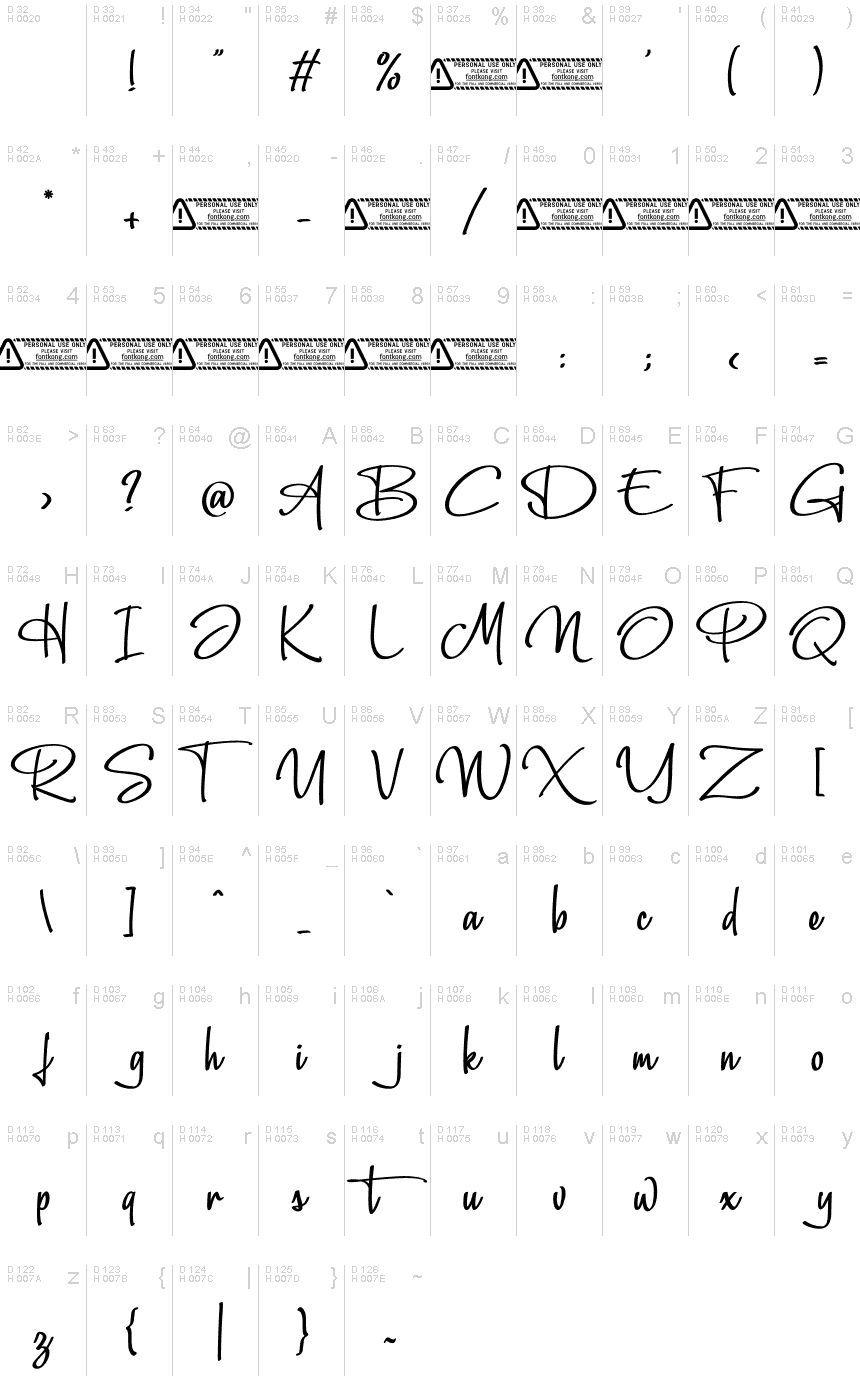
Just Enjoye
Just Enjoye, a delightful creation by Kong Font, is a charming handwritten font that exudes a playful elegance. With its semi-light weight, it adds a touch of whimsy to various projects. For invitations and greeting cards, Just Enjoye brings warmth and personal flair. In children's books, it sparks imagination and nurtures creativity.
Its friendly yet refined style lends itself perfectly to branding materials, giving businesses a unique and approachable identity. Whether used for social media graphics or blog headers, Just Enjoye effortlessly captures attention and invites engagement.
Let your designs come alive with the enchanting essence of Just Enjoye.